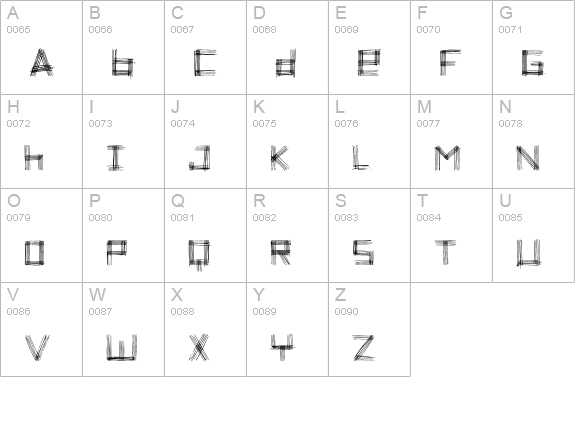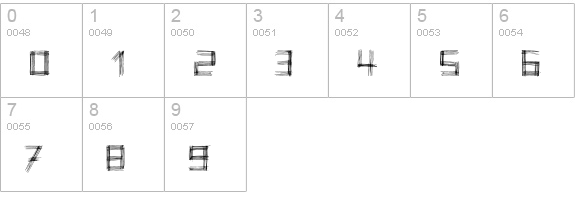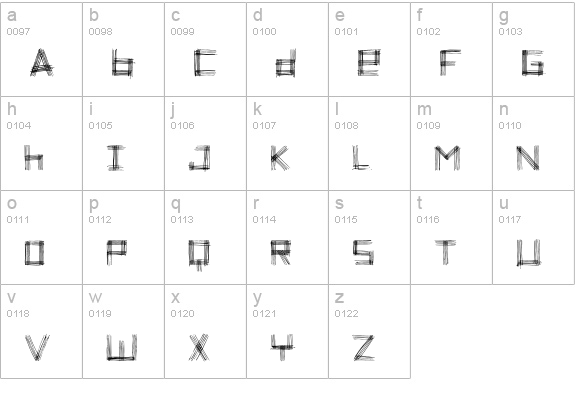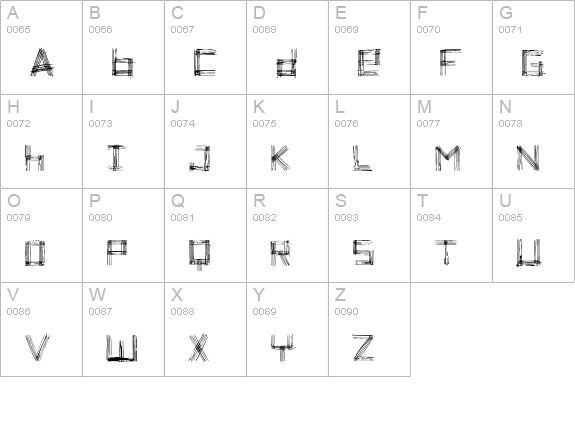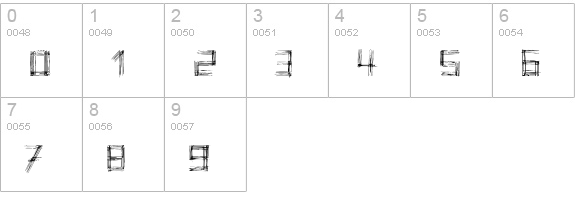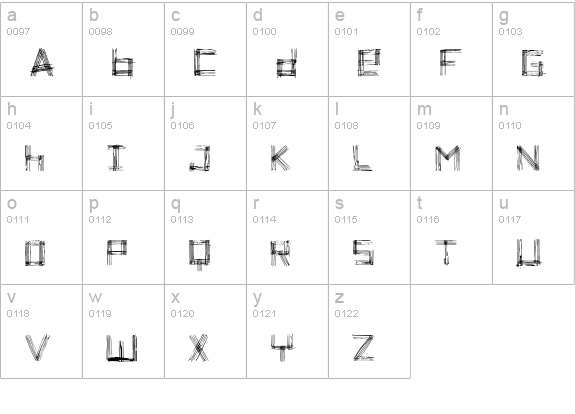
zoë the zebra Font Details
Introducing Zoë the Zebra font, a playful and whimsical typeface inspired by the unique patterns of a zebra's stripes. This font captures the essence of fun and creativity, making it perfect for a wide range of design projects. Zoë the Zebra font is not only visually striking but also versatile, suitable for both headlines and body text. Its bold and distinctive characters will surely make your designs stand out. Best of all, Zoë the Zebra font is available for free download at FontsMarket.com. So why wait? Add a touch of wild charm to your creations with this delightful font today!